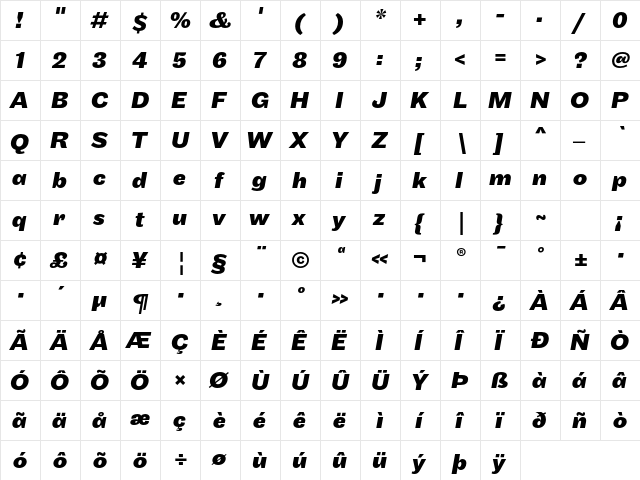
Maple Bold Italic
Bold Italic · Eric Olson Eric Olson ·
Design Context for Maple Typeface
Maple offers clean, dependable letterforms without strong stylistic allegiance, making it a practical choice for designers who need flexibility. The dynamic lean of this cut emphasises speed and emphasis in any layout. The heavy weight commands attention and anchors typographic hierarchies.
Pro Tip: Try Maple for annotation and caption copy alongside an upright companion — the contrast in angle creates a dynamic but ordered typographic system.